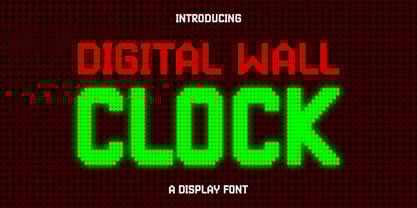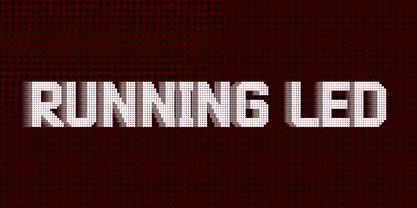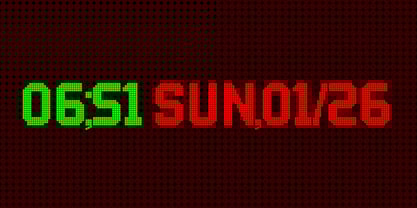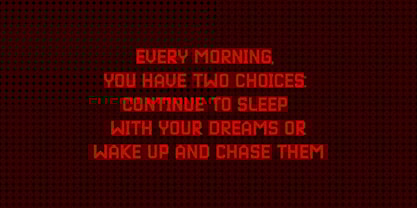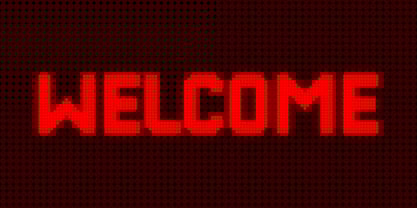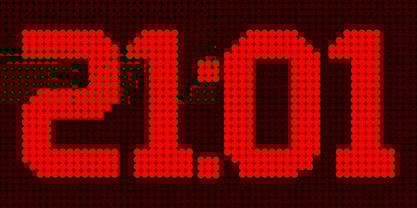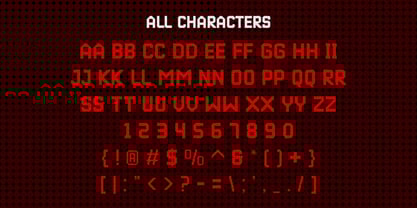
Digital wall clock
by Patlot Digital Studio
The Digital wall clock Font Family was designed by Gugun Gunawan and published by Patlot Digital Studio. Digital wall clock contains 1 styles. More about this family
Introducing Digital Wall Clock, The elegantly devised display font inspired by the digital timekeepers adorning the sacred walls of worship places, welcoming digits of government offices, and intimate bedrooms around the world. Unleash the mesmerizing charm of this extraordinary font and allow your wall lettering designs to glow with sophistication and allure. Experience the luxurious transformation Digital Wall Clock imparts in everyday designs.
Designers: Gugun Gunawan
Foundry: Patlot Digital Studio